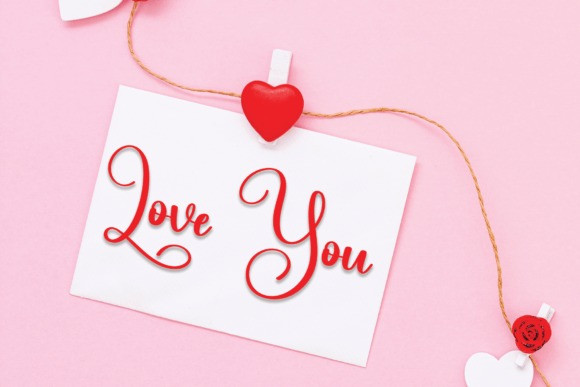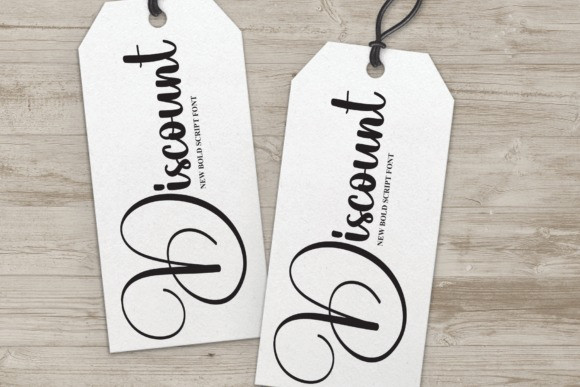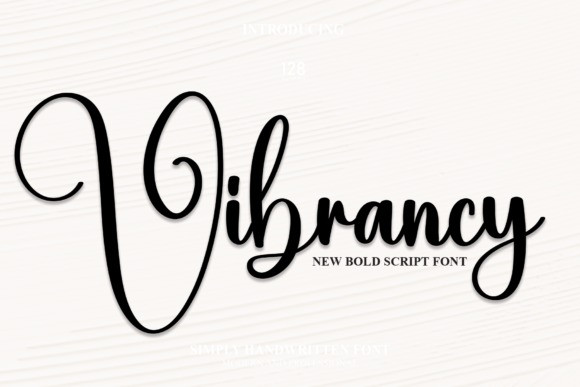
Vibrancy Script Font
Vibrancy Script Font is a bold and exquisite handwritten font. Stylish, graceful, and flowing, this font will definitely elevate the look of any of your beautiful creations while keeping them grounded and natural.